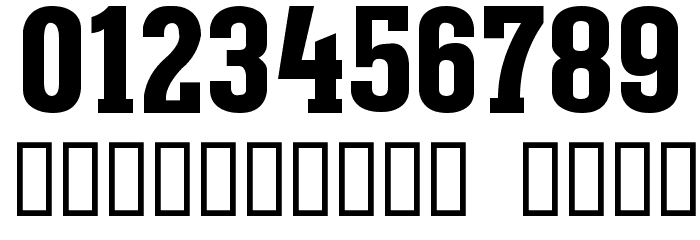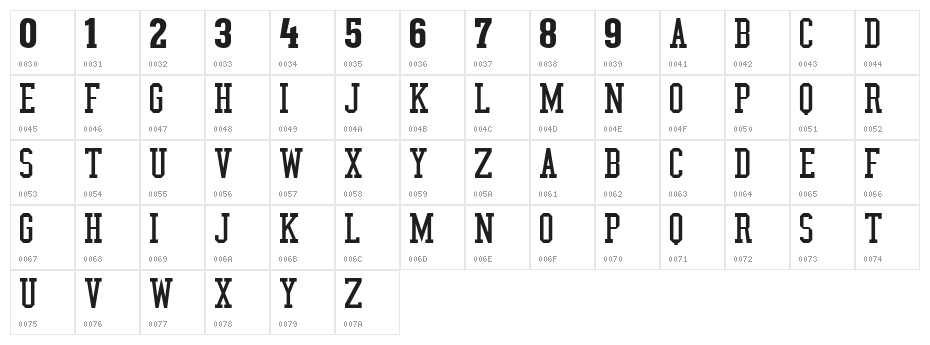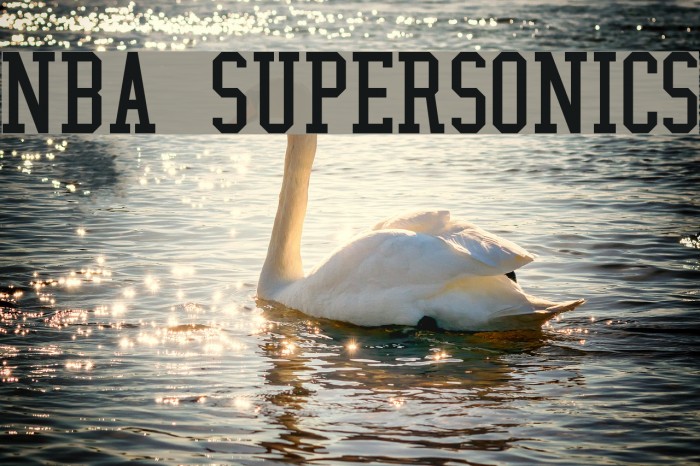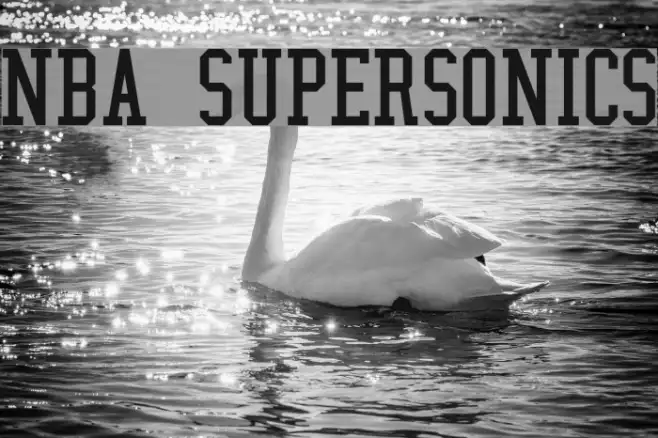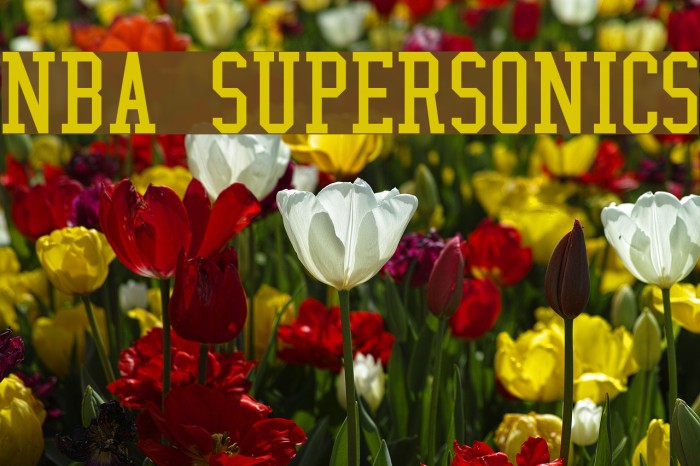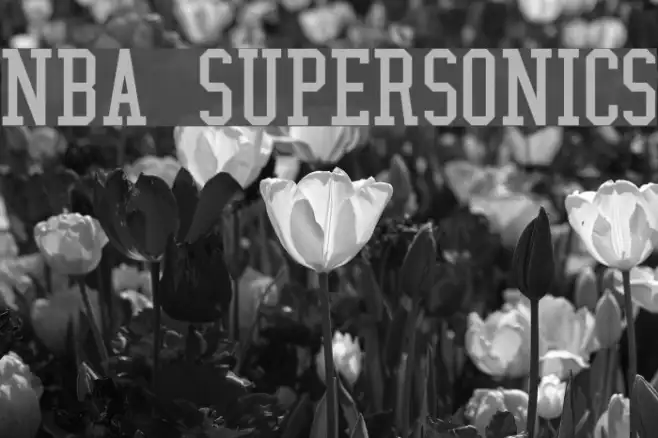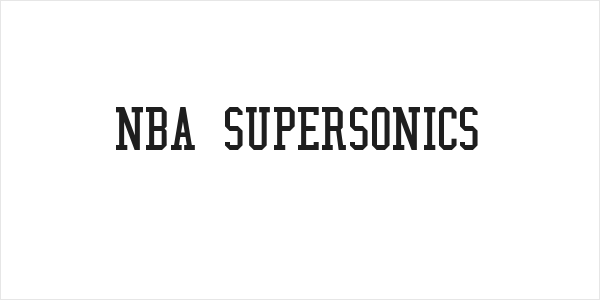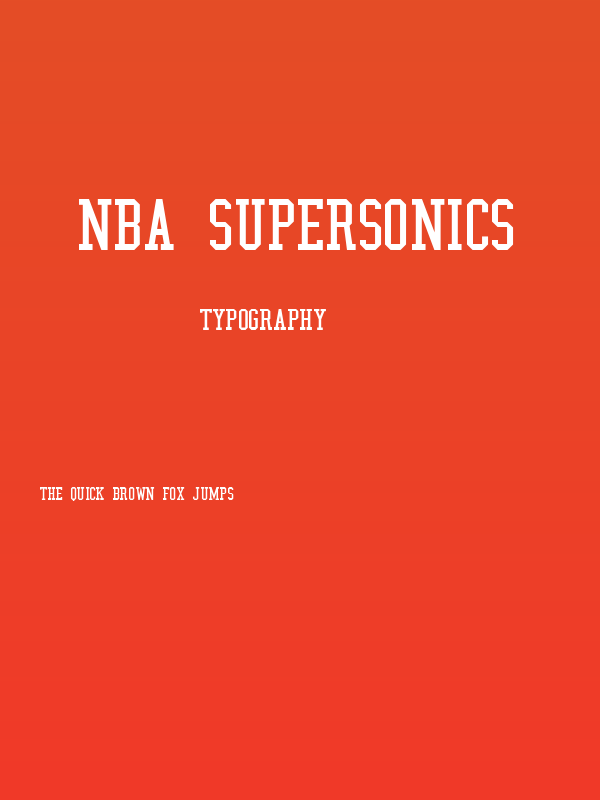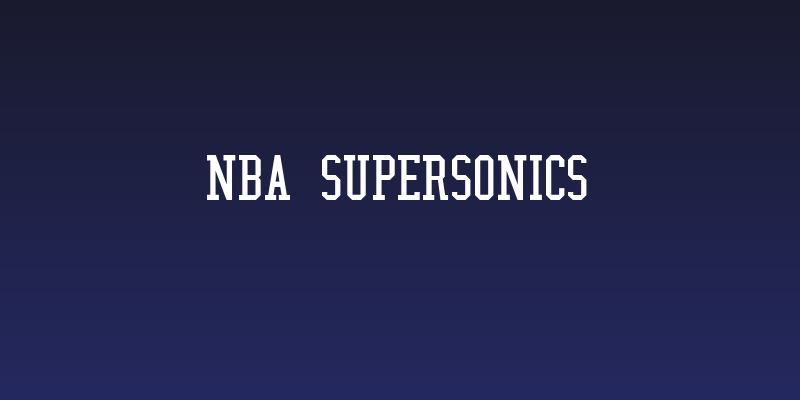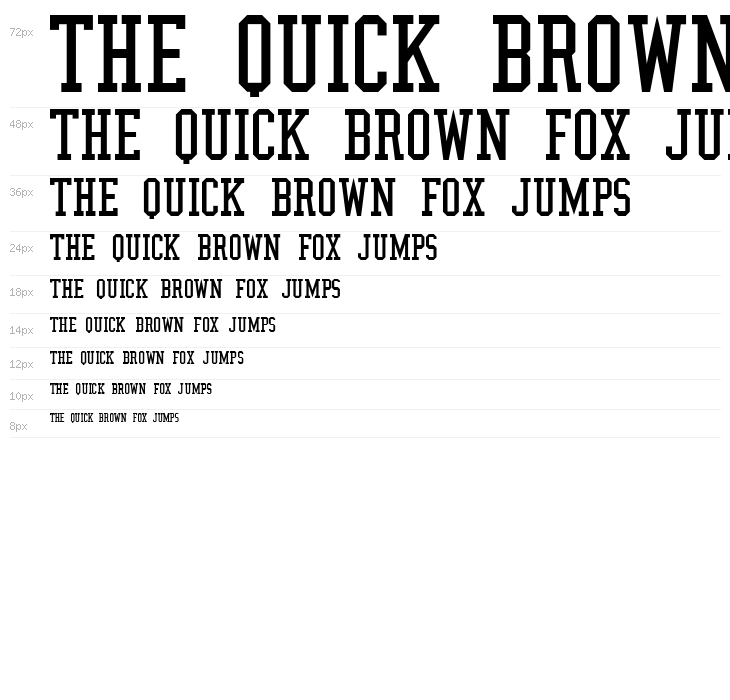
NBA SuperSonics Font
This font features a bold and commanding presence with its strong, block-like characters. The uppercase letters are tall and slightly condensed, giving a sense of authority and impact. The numbers are equally robust, maintaining the same boldness and clarity. The overall design is reminiscent of sports or collegiate themes, making it ideal for projects that require a strong visual impact. The font's structure is clean and straightforward, with minimal decorative elements, ensuring readability and versatility.